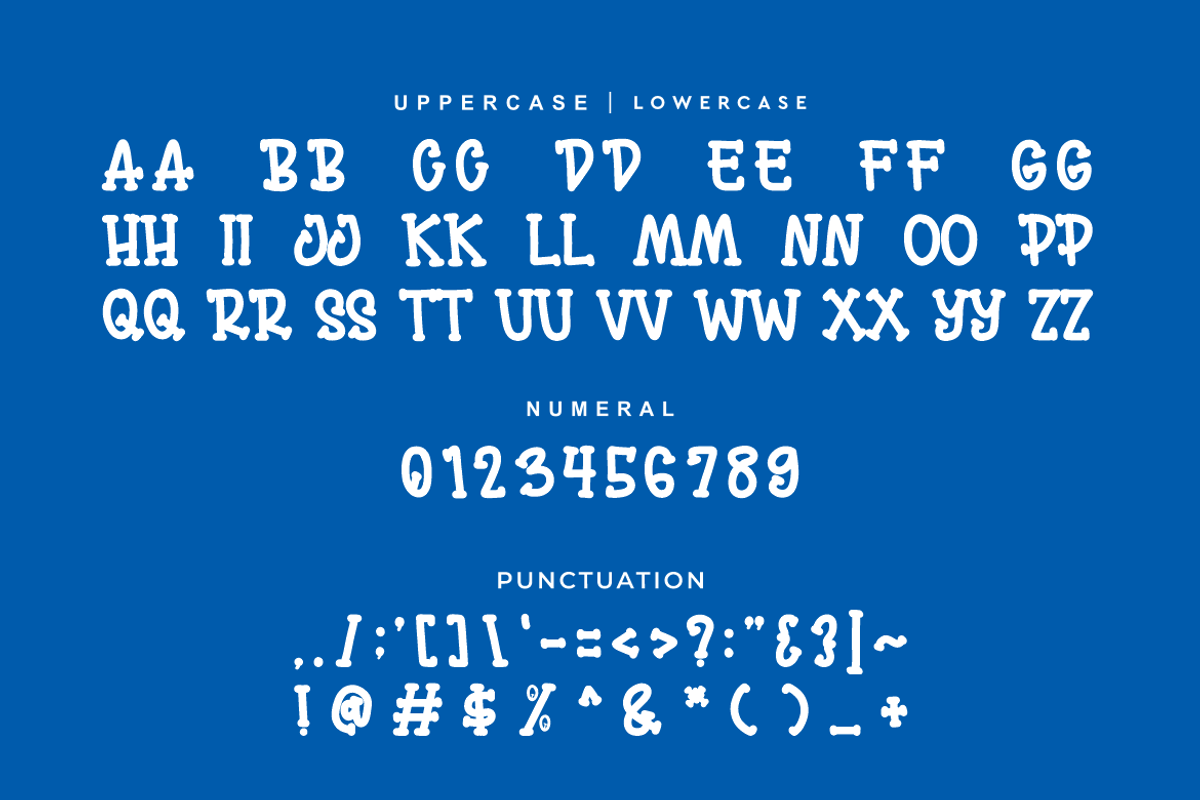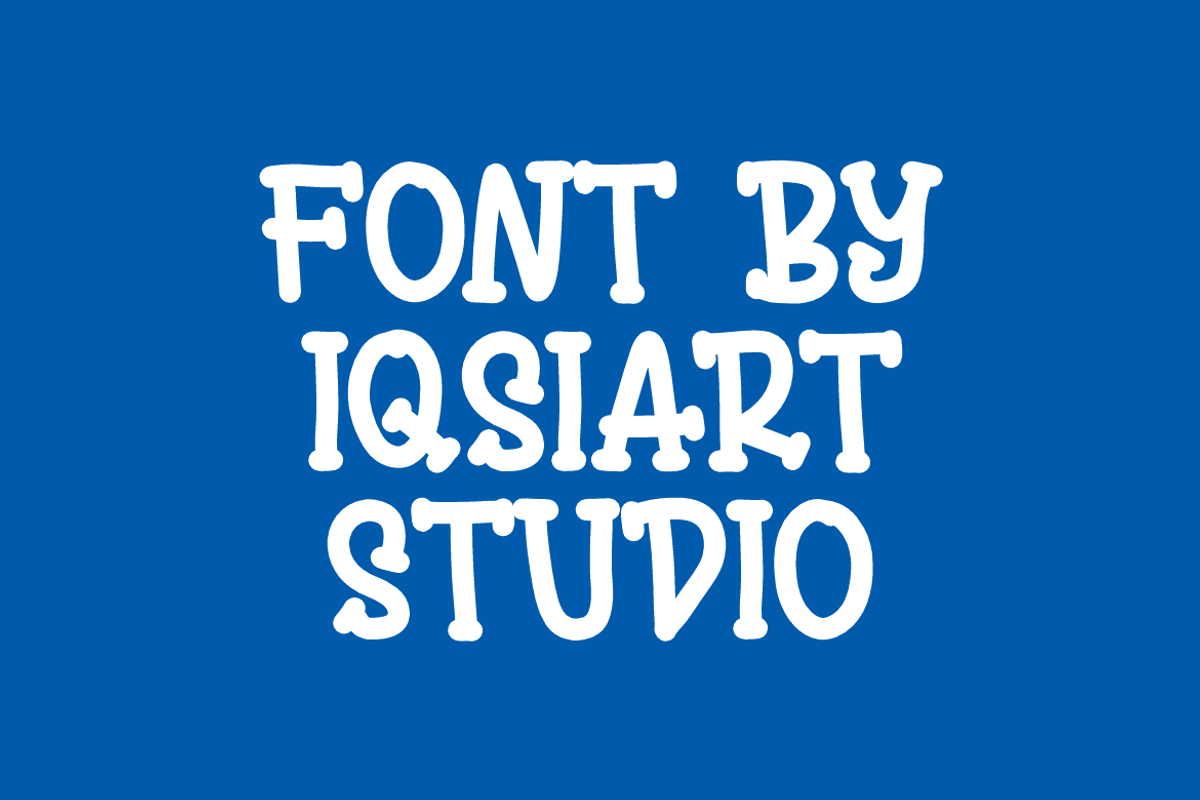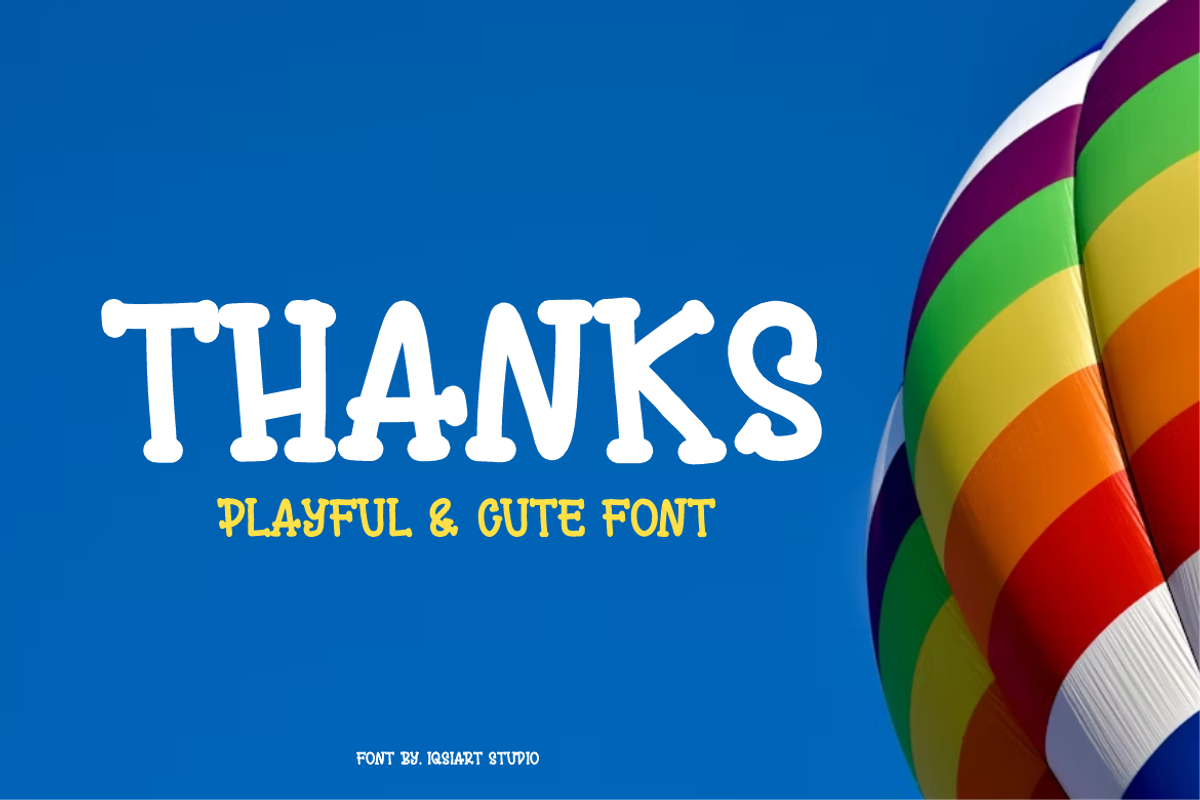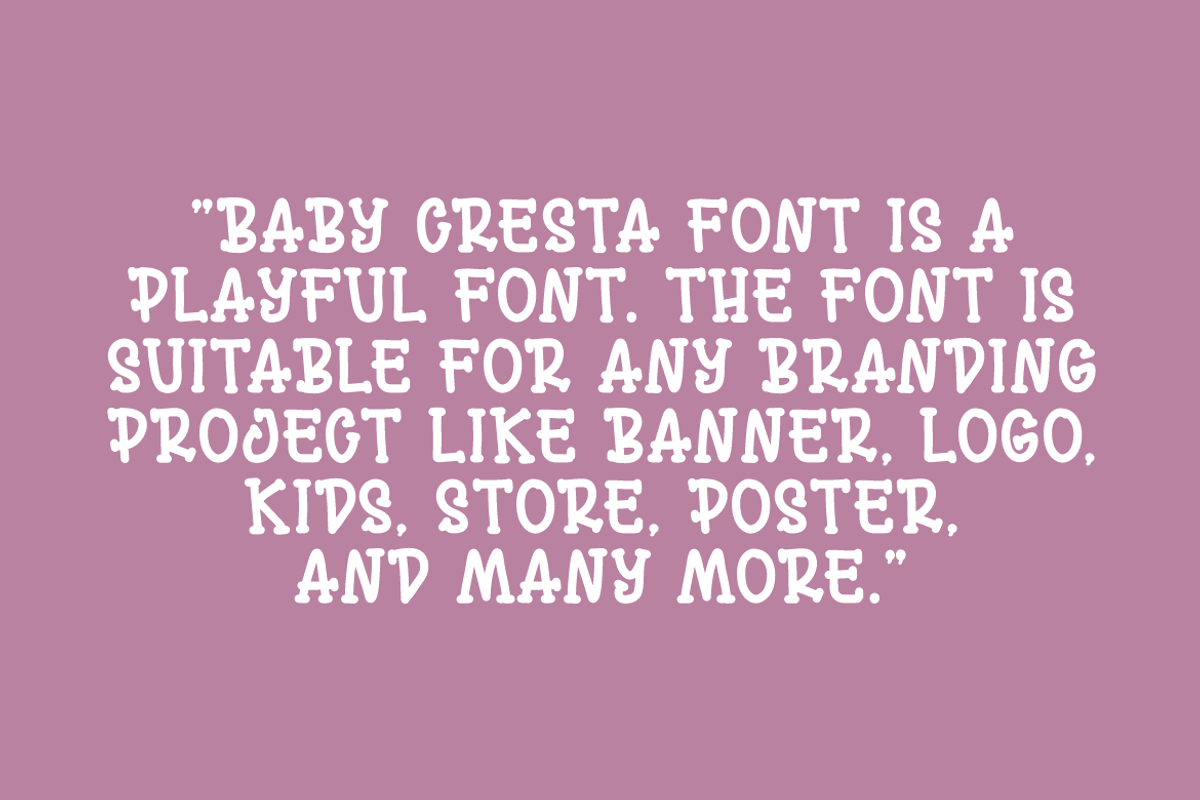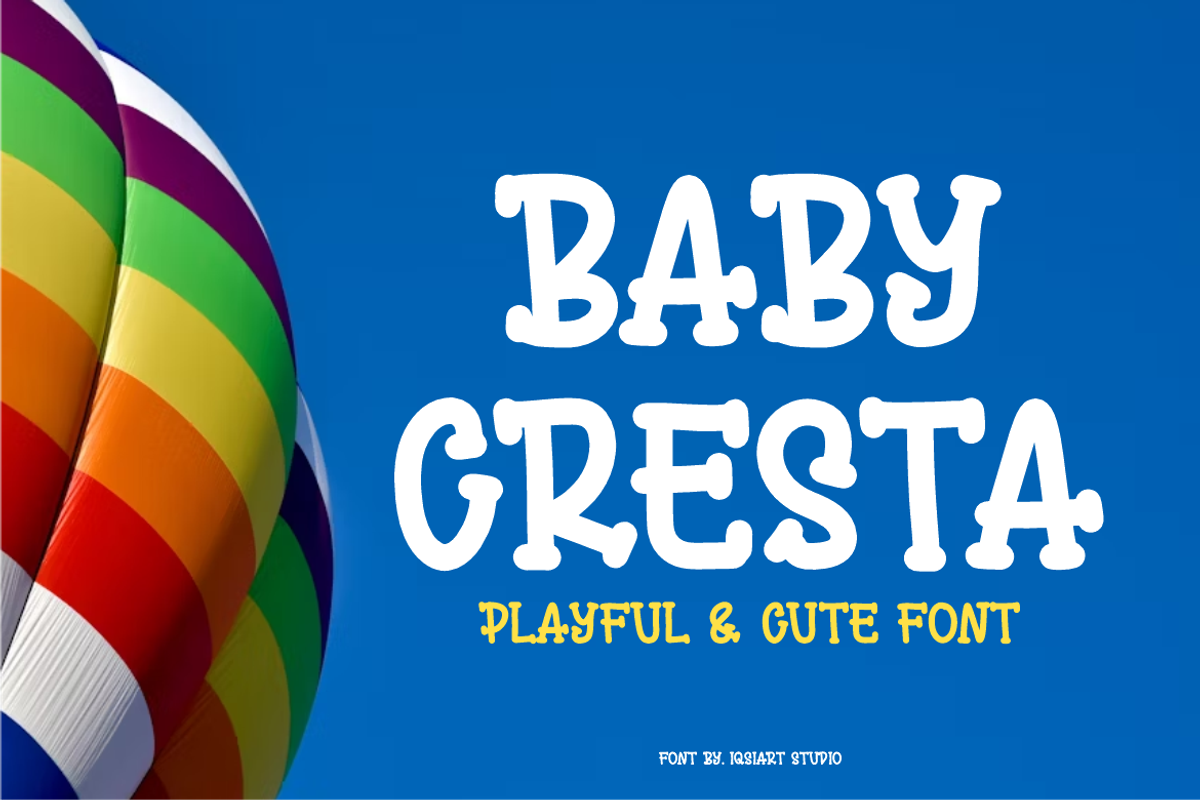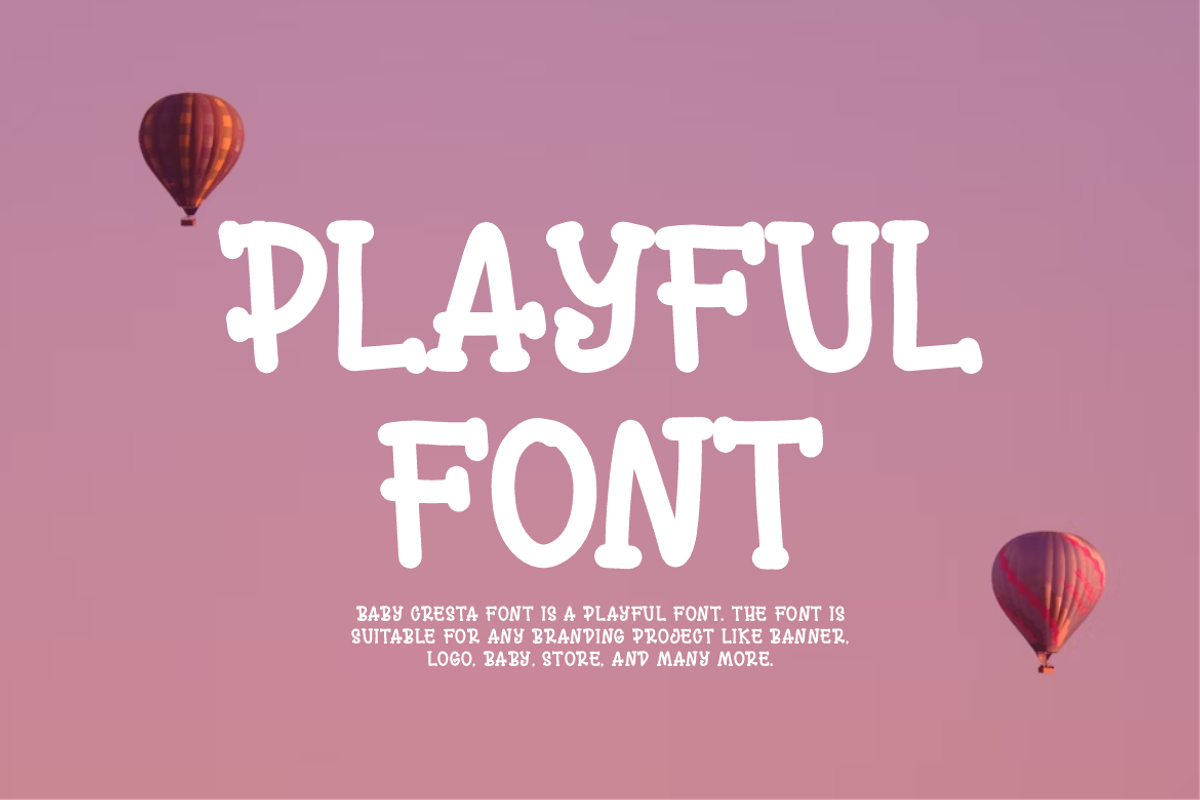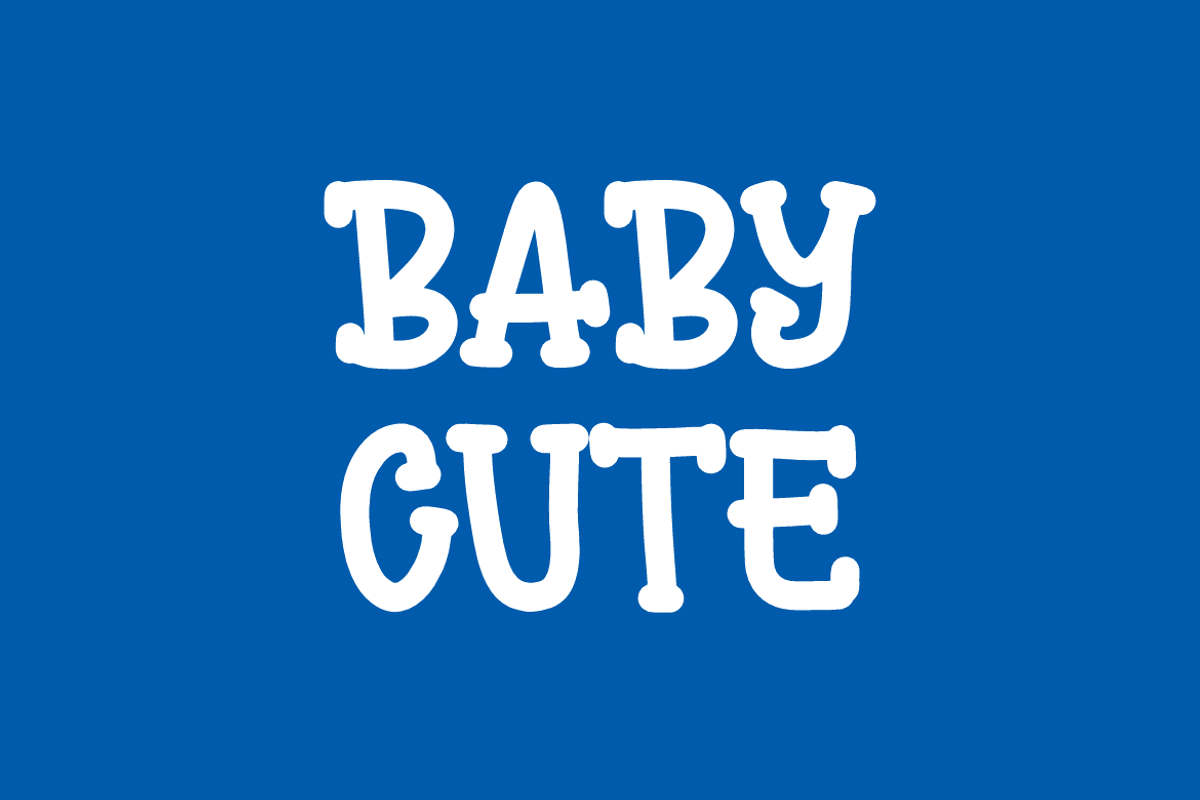
Baby Cresta - Kids Font
Baby Cresta Font is a best and authentic display font. This font can be used for your various needs. We provide various themes and font styles. visit our profile to get a wide variety of themes and different font styles you need.